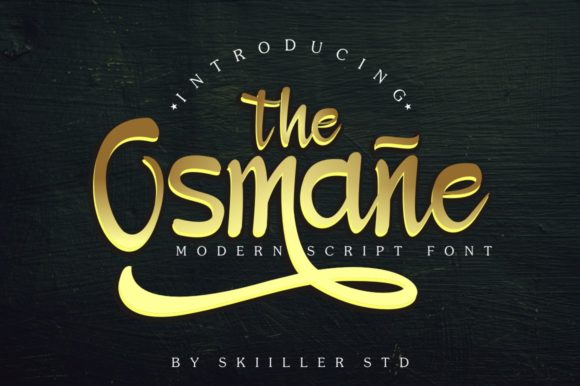
Presenting Osmane Font, a breathtaking script font that will ignite your imagination and elevate your designs to new heights. Crafted with precision by the renowned Skiiller Studio, Osmane is a contemporary masterpiece inspired by the timeless elegance of handwritten calligraphy.
Immerse yourself in the world of Osmane, where each letter dances upon the page with grace and fluidity. Its captivating swashes add a touch of whimsy and sophistication, transforming your words into works of art. Experience the sheer joy of creating with Osmane as it effortlessly turns every project into an unforgettable masterpiece.
Whether you're a seasoned designer looking to add a touch of magic to your creations or a passionate hobbyist seeking to express yourself through the written word, Osmane is the perfect font for your journey. Its versatile nature makes it an ideal choice for a wide range of projects, from elegant invitations to heartwarming personal notes.
Indulge in the artistry of Osmane and let your creativity soar. Allow its graceful strokes to guide your hand as you craft designs that captivate and inspire. Experience the joy of creating with a font that speaks to your soul and brings your vision to life.